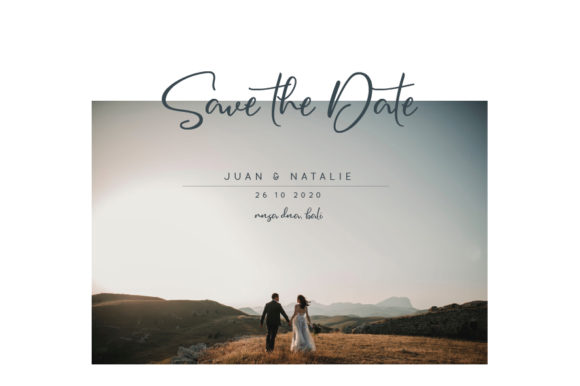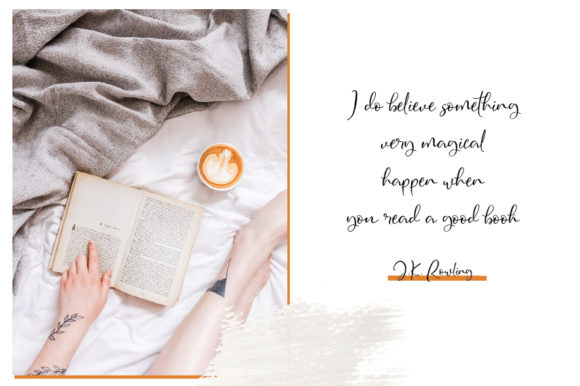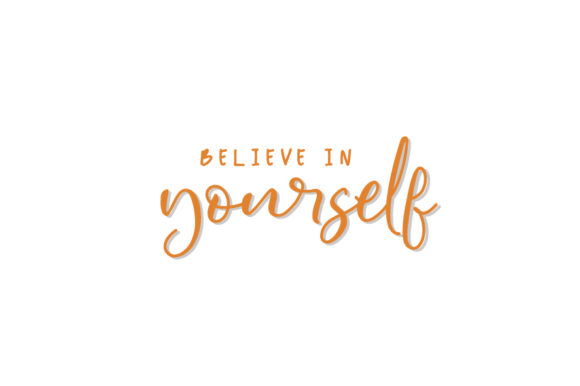
Oh Twenty Font
About Oh Twenty Font
Oh Twenty is a light and charming script that will beautify a wide range of crafts. Use it to add a fashionable impression to any design!